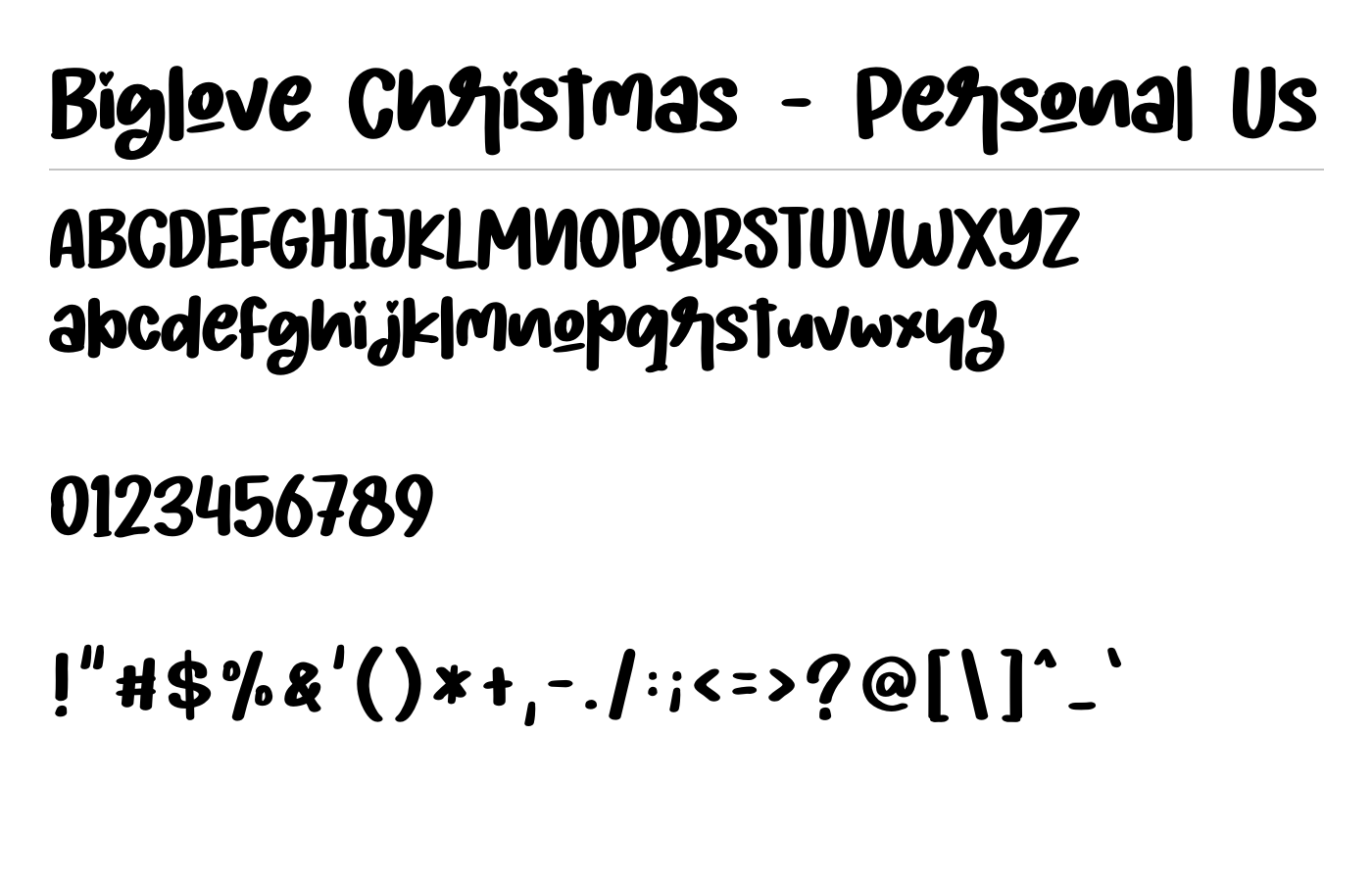
Biglove Christmas is a playful, hand-drawn sans serif font that radiates warmth and cheer with its rounded, bold strokes and whimsical letterforms. Its casual, friendly style makes it perfect for festive, lighthearted designs such as holiday cards, invitations, and children’s products where a personal, joyful touch is desired. This font’s approachable vibe and clear readability also work well in logos or headlines that aim to convey fun and creativity.
Biglove Christmas - Personal Us Font
About Biglove Christmas - Personal Us Font
| Font family | Biglove Christmas - Personal Us Font |
| Designer | Ahmad Afandi |